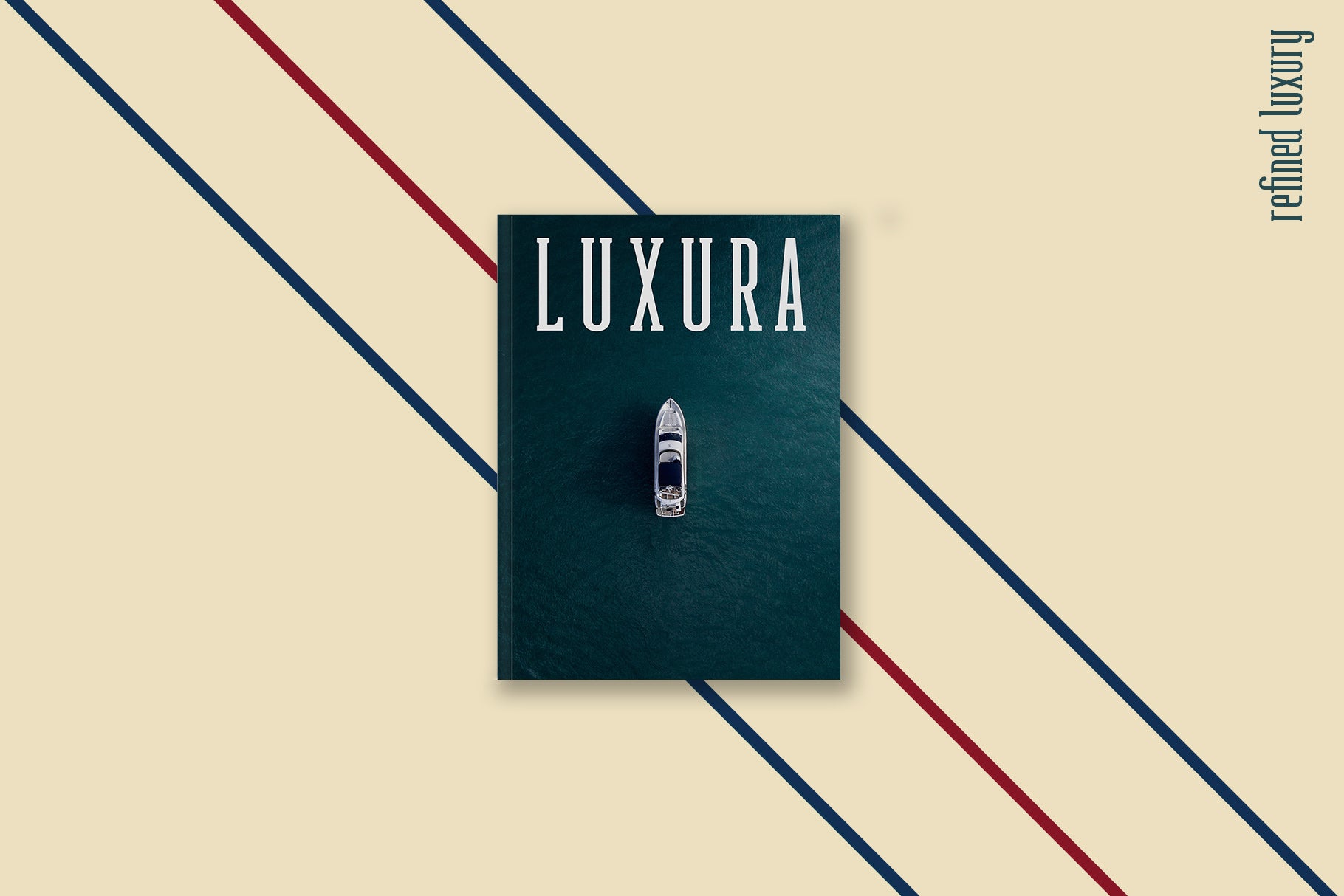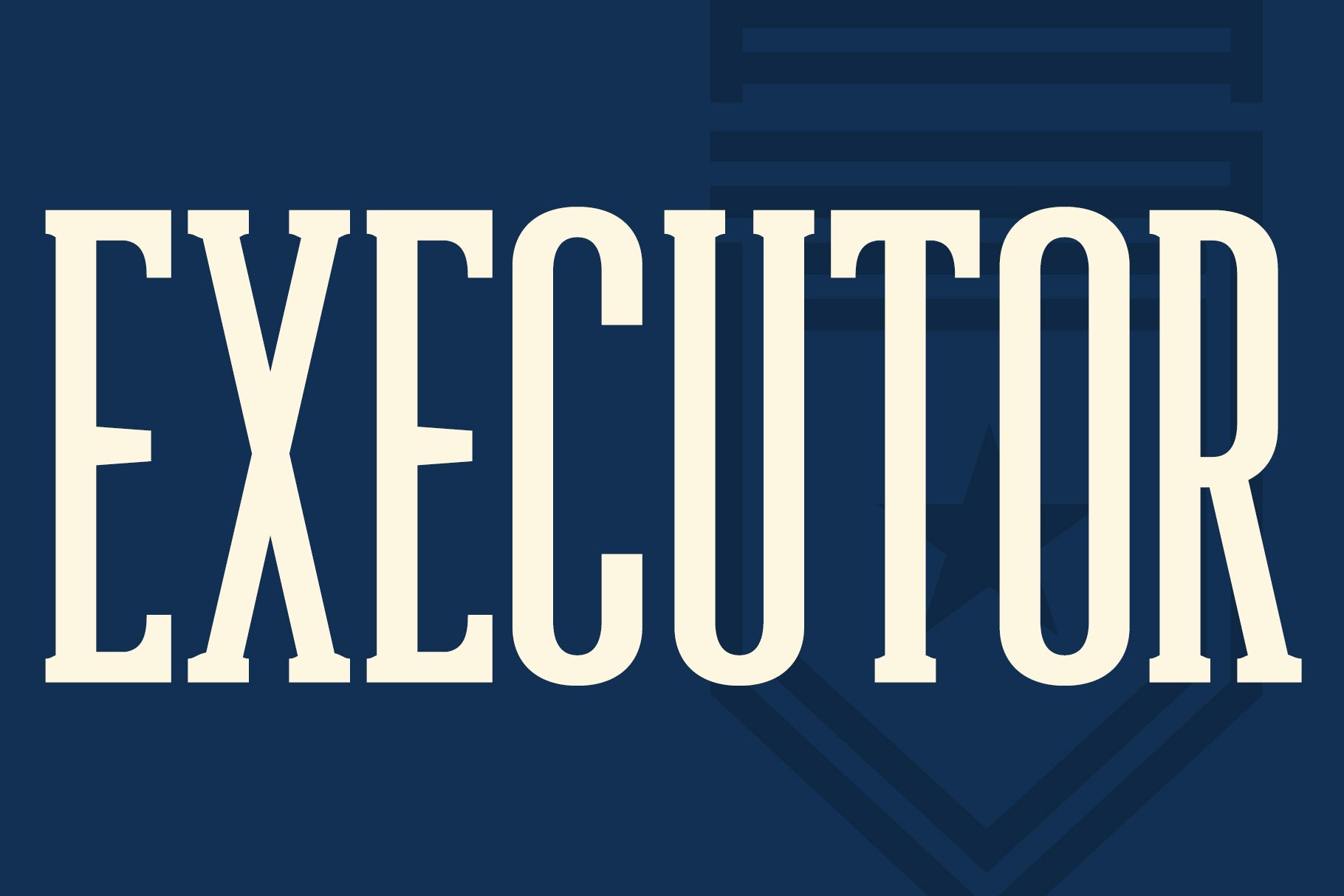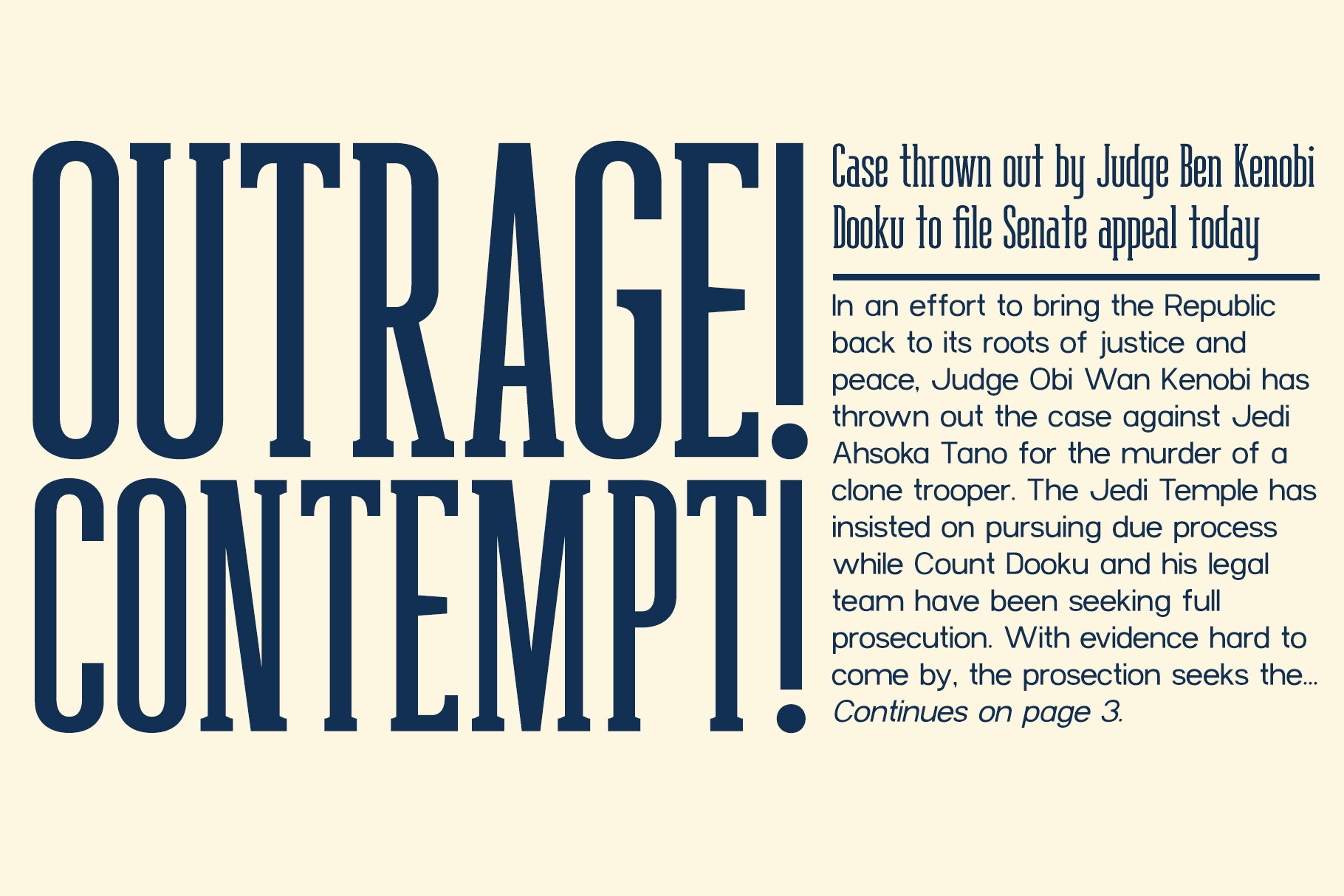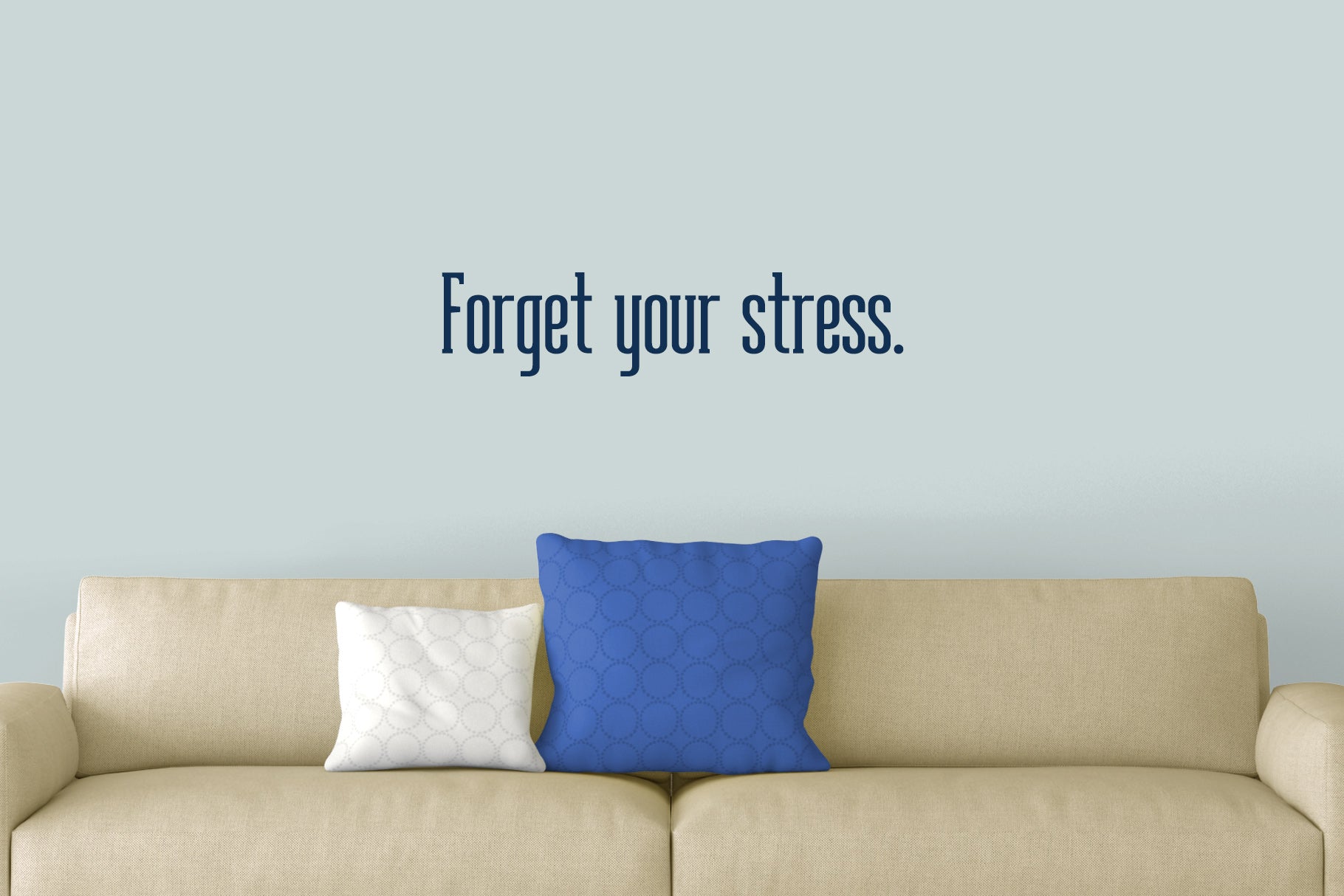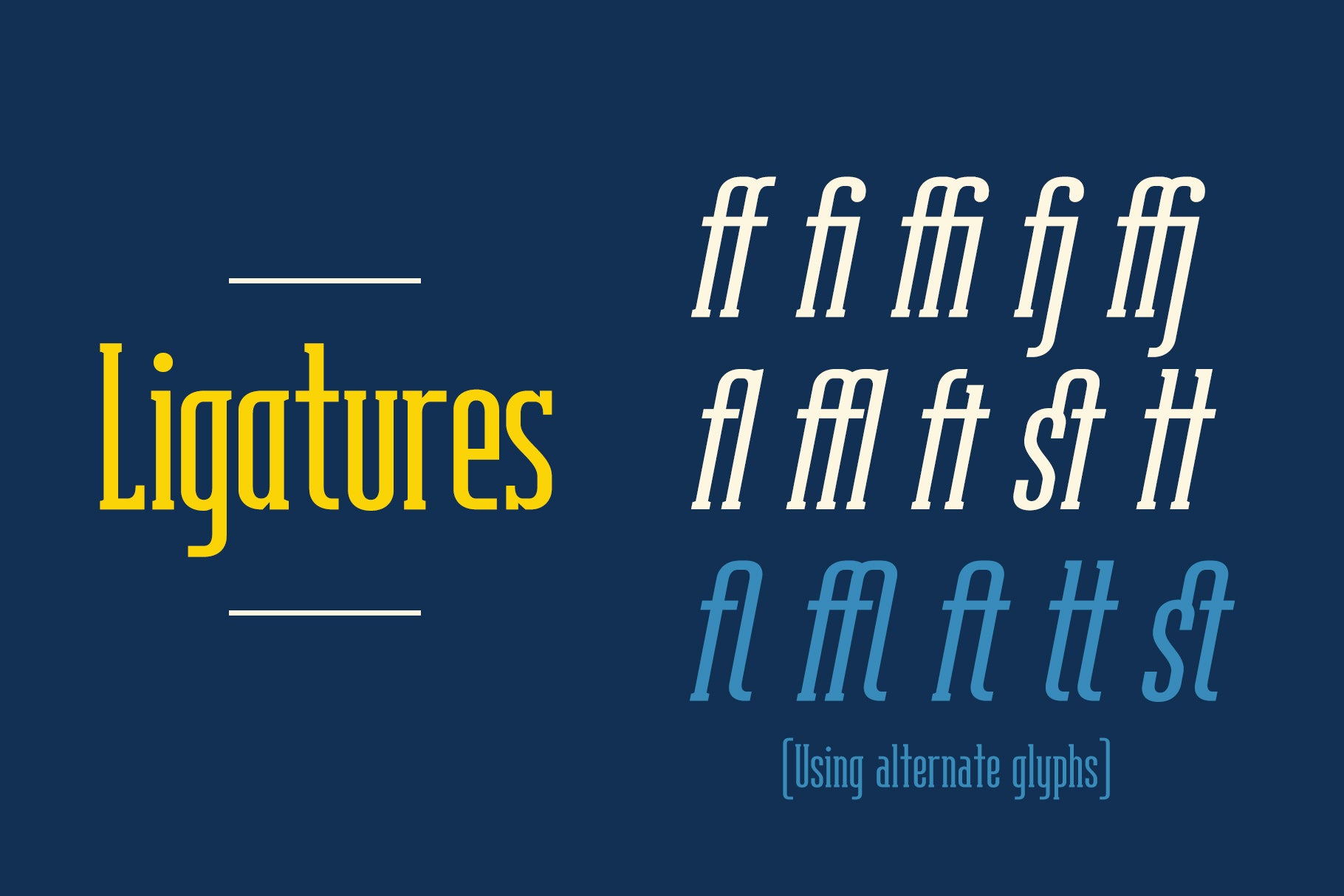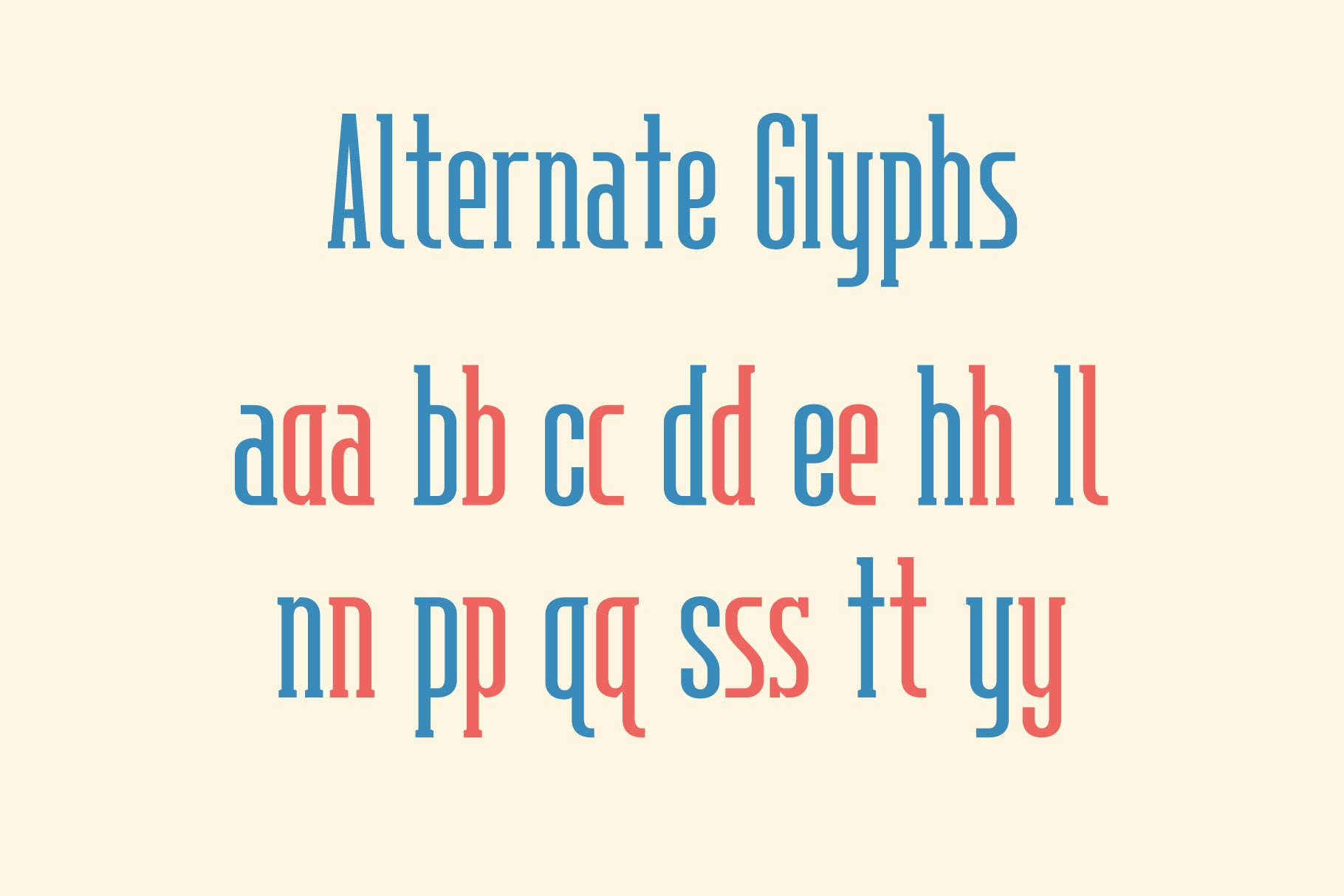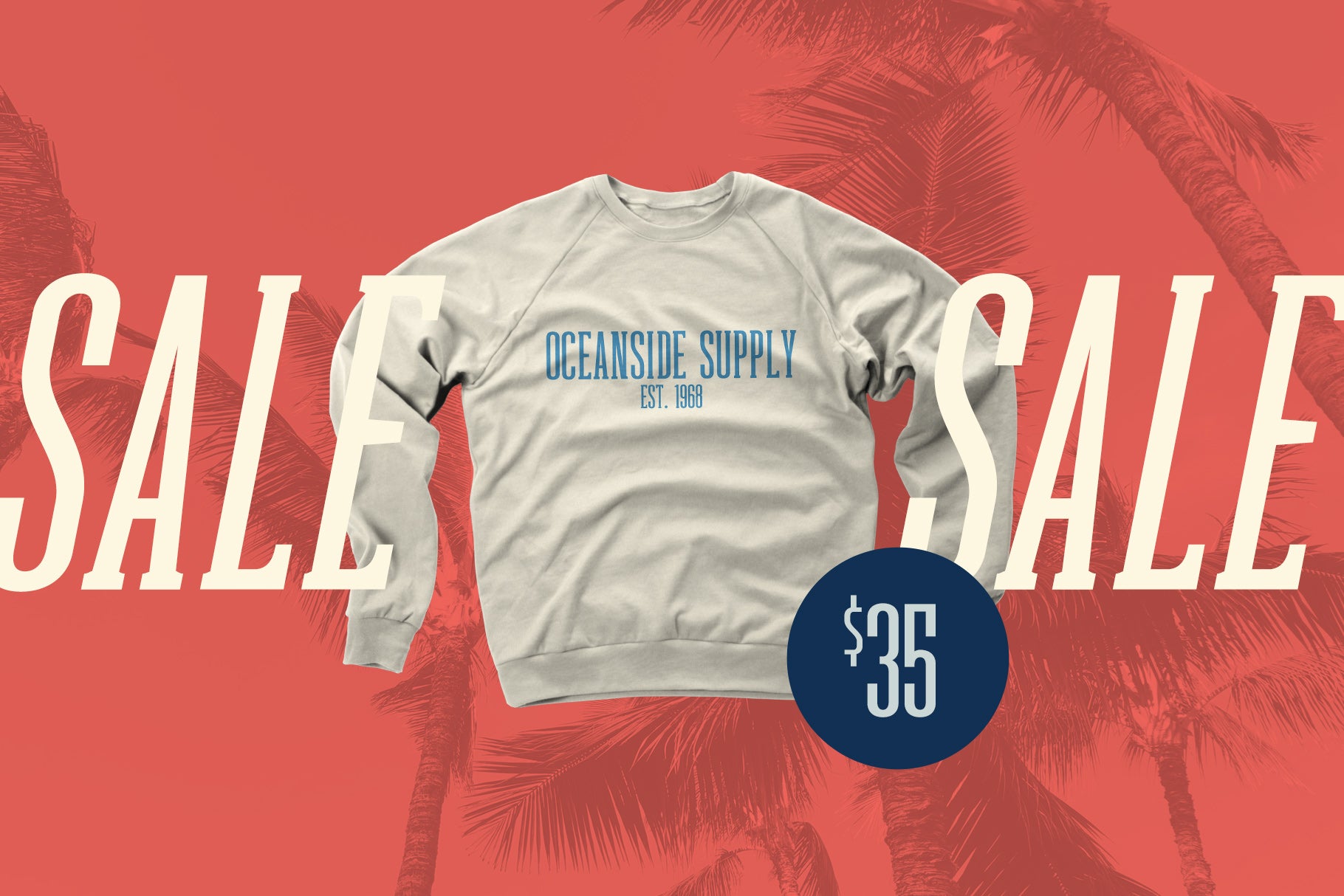
Executor Typeface
EXECUTOR is a tall, condensed, semi-slab serif available in 1 weight and italic.
Built for large headlines, EXECUTOR features:
- Lowercase
- Alternate glyphs
- Ligatures
- Multi-language support (Latin & some European)
EXECUTOR plays nice with editorial, advertising, publishing, signage, digital and a variety of other industries like sports or entertainment.
I created EXECUTOR to go with my other typeface, AWESTRUCK in hopes that they'd pair well with each other. You can see them in use on the second display image.